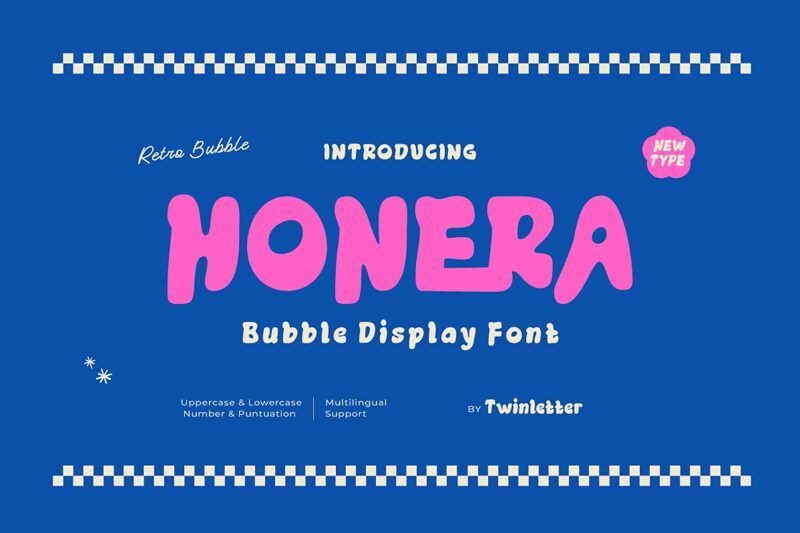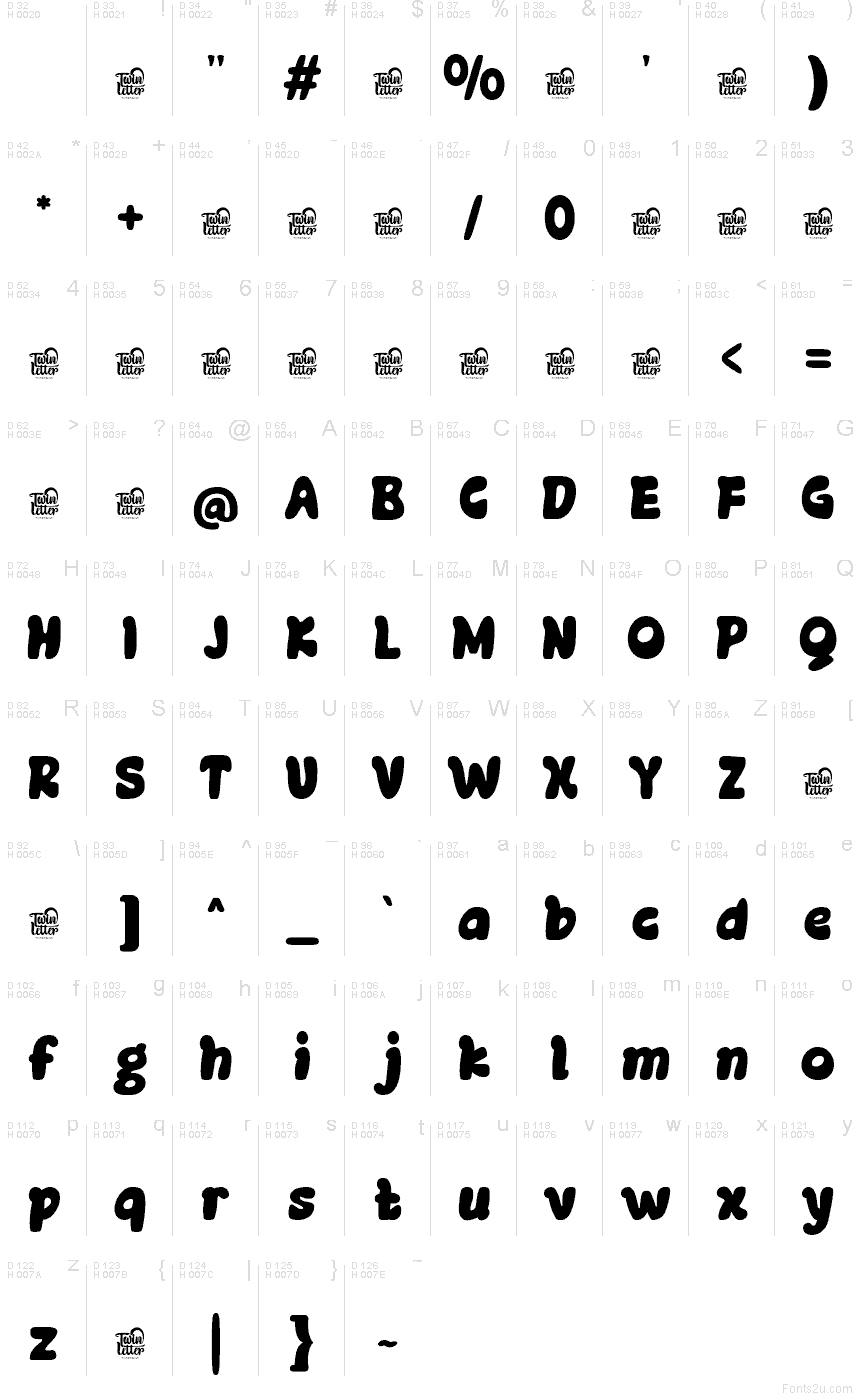
Honera is a bold, playful font that exudes a delightful, whimsical charm. Crafted by Twinletter, this display font boasts a distinct cartoon-inspired aesthetic, with its thick, expressive strokes and dynamic, organic curves. The font's bold, confident presence commands attention, making it an ideal choice for adding a touch of playfulness and personality to various design projects.
Honera's versatility shines through, making it a suitable option for a wide range of applications, from eye-catching headings and logos to vibrant social media graphics and imaginative product packaging. Its bold, distinctive style lends itself particularly well to branding and marketing materials, where it can help create a memorable, engaging visual identity.